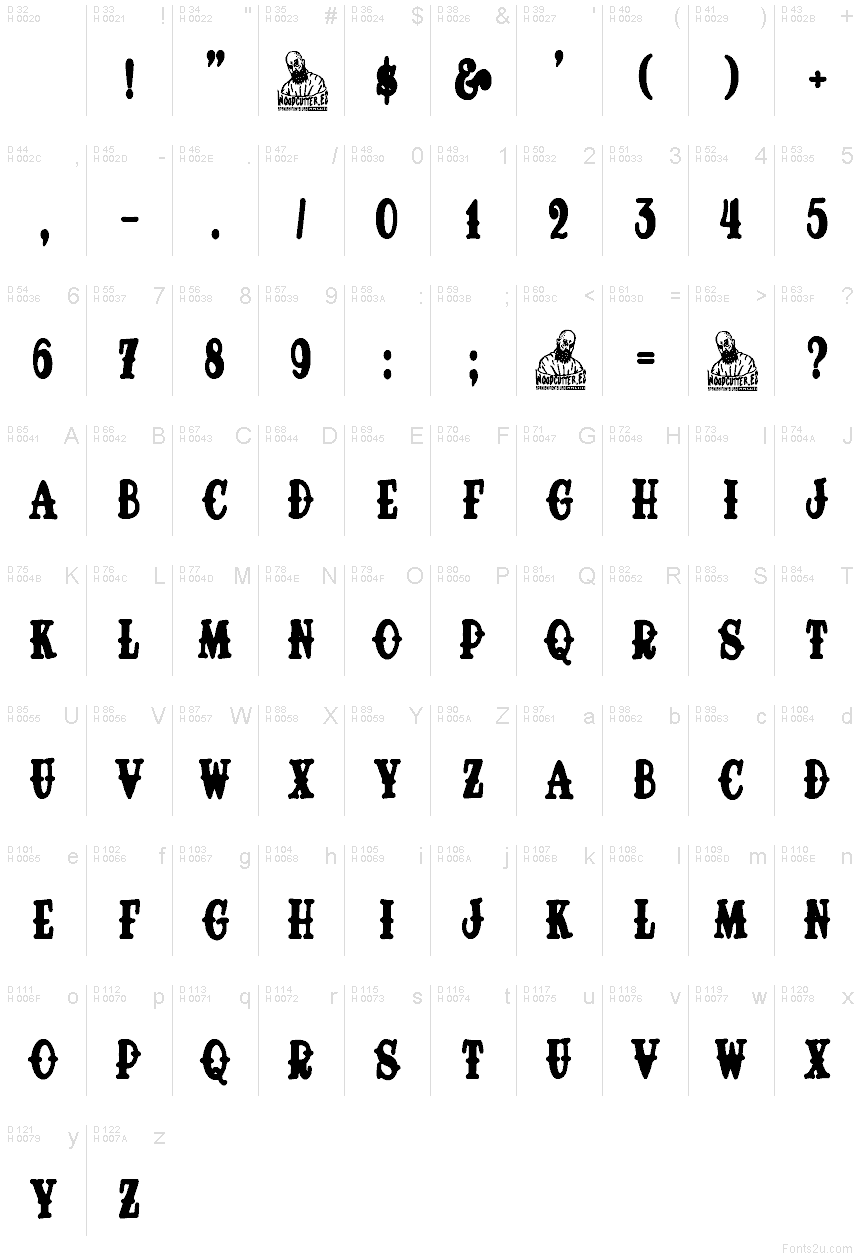
Diamond Tattoo Parlour
Diamond Tattoo Parlour font by Woodcutter is a display font inspired by Western art. Its bold, condensed characters mimic the typography of vintage posters and allow for unique designs with an authentic feel. Redefine historical flair beautifully within your projects thanks to the careful touch added to every letter.
Design impressive signs, stickers, labels, logos, magazines designs, headlines for newspapers or websites pages; stationery and apparel items such as t-shirts and tags; invitations for themed events or even business cards with a personal presentation that’s as artistic as it is memorable.